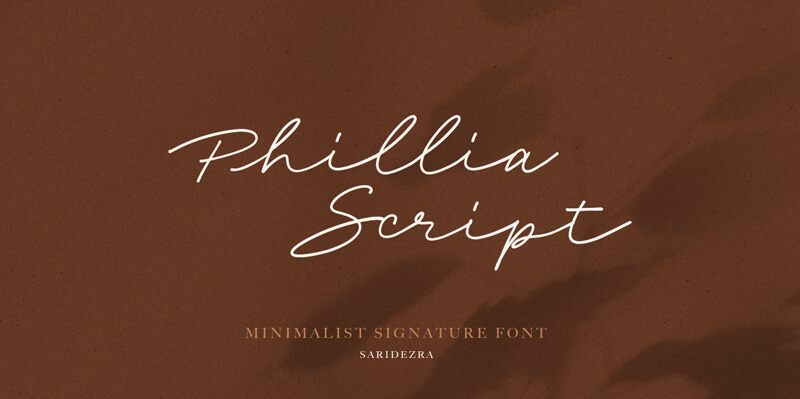
Phillia font exudes a charming, handwritten elegance, designed by Sarid Ezra. Its graceful strokes emulate a personal signature, inviting a sense of warmth and authenticity. The light character of this font flows fluidly, making it perfect for conveying intimacy in design.
Visually captivating, the expanded form adds a sense of space and airiness, allowing each letter to breathe. This unique combination balances sophistication with casual friendliness.
Ideal for invitations, branding materials, and creative projects that require a touch of individuality, Phillia captures attention while maintaining an effortless grace. Whether used in print or digital media, its appealing aesthetic makes it an excellent choice for those looking to evoke emotion and connection through typography.